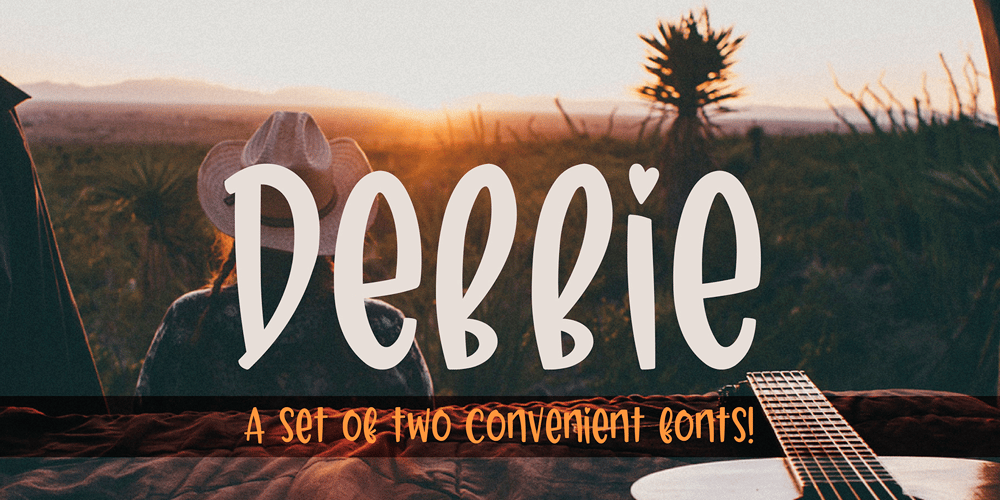
Debbie Font Family was designed by Anastasia Kuznetsova and published by Anastasia Kuznetsova. Debbie contains 2 styles and family package options. I am very pleased to present you Debbie – a universal set of handmade fonts!Thanks to the very clear weight contrast and authentic matte style, Debbie is guaranteed to give your text an individual, individual feel – a fancy, freshly baked font is perfect for greetings, adding to illustrations, children’s books, delicious packaging, labels, printed quotes, logos and much more!!Font features:– A-Z; character set a-z;– 1 language (English);– numbers and punctuation marks, symbols.Fonts can be opened and used in any software that can read standard fonts, even in MS Word.Made with love and magic ♡Thank you for checking this out and feel free to write me a message if you have any questions!~ Anastasia